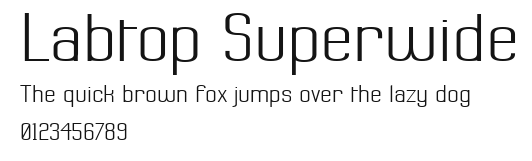
• Font Name: Labtop Superwide
• Designer: Graham Meade & Apostrophic Labs
About Labtop Superwide.ttf
Labtop Superwide.ttf is a modern, elegant sans-serif font designed for ultimate readability and visual harmony. Perfect for branding, headlines, web design, and print materials.